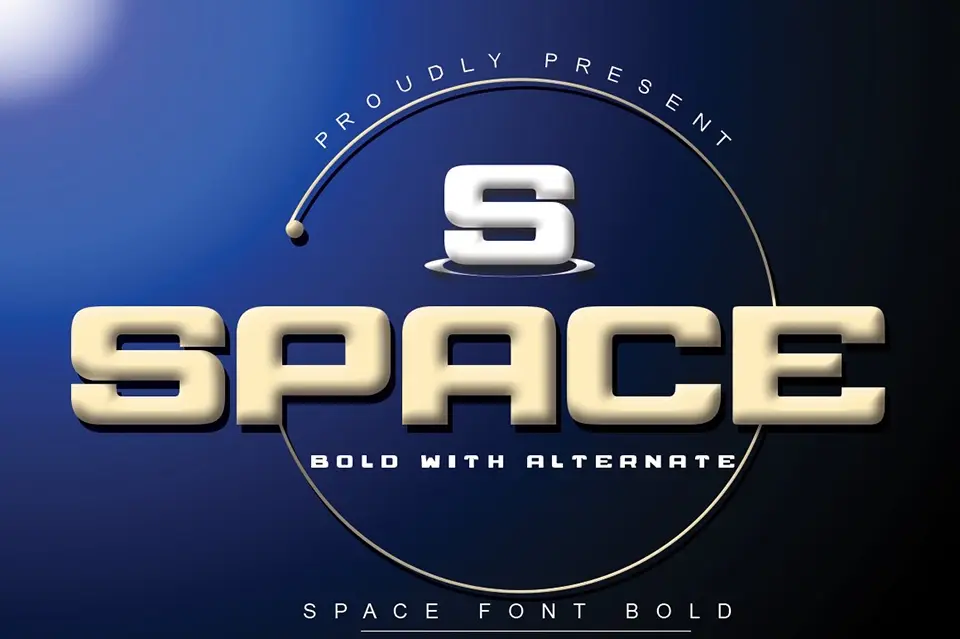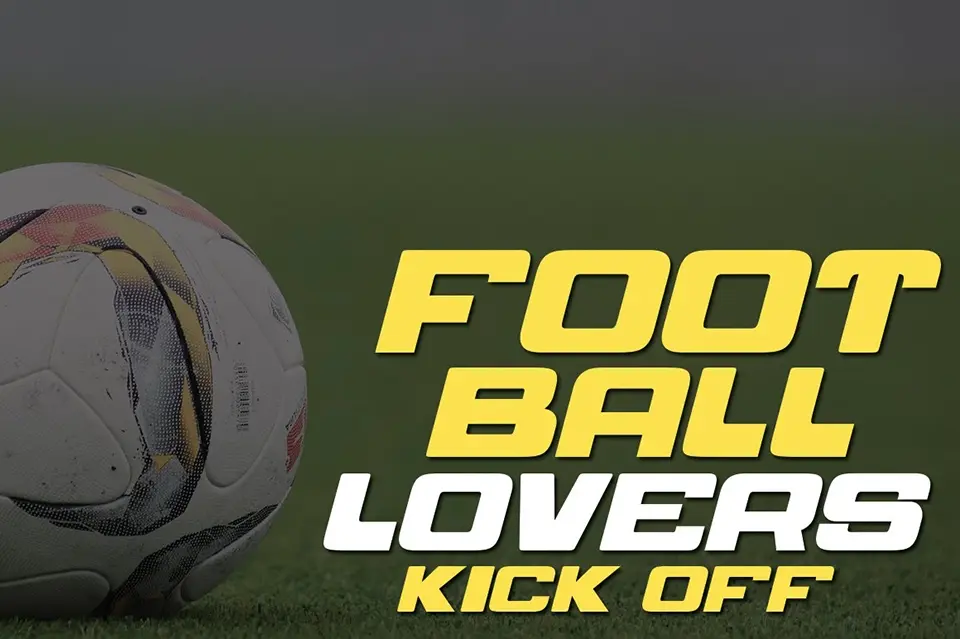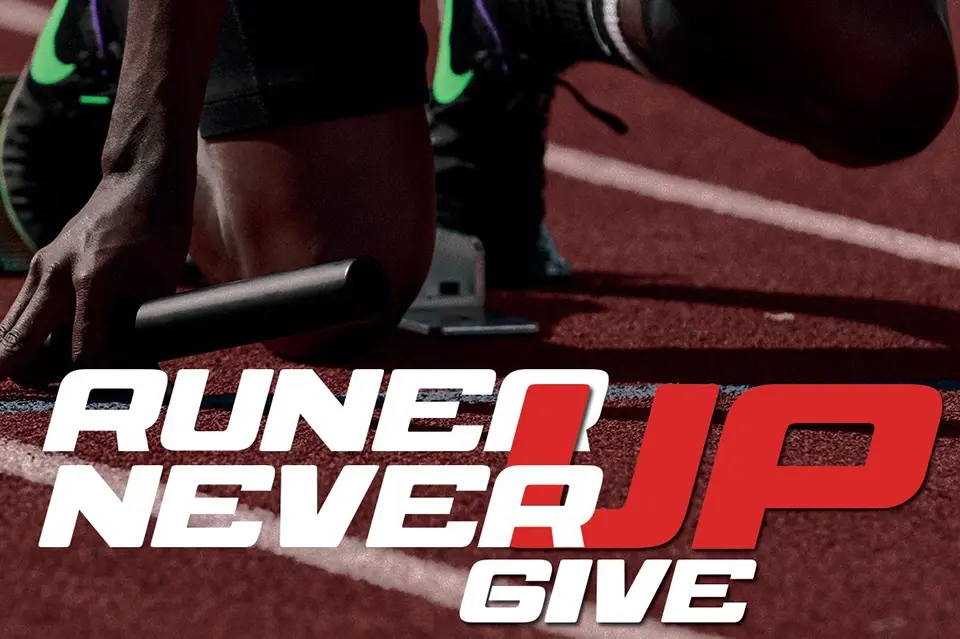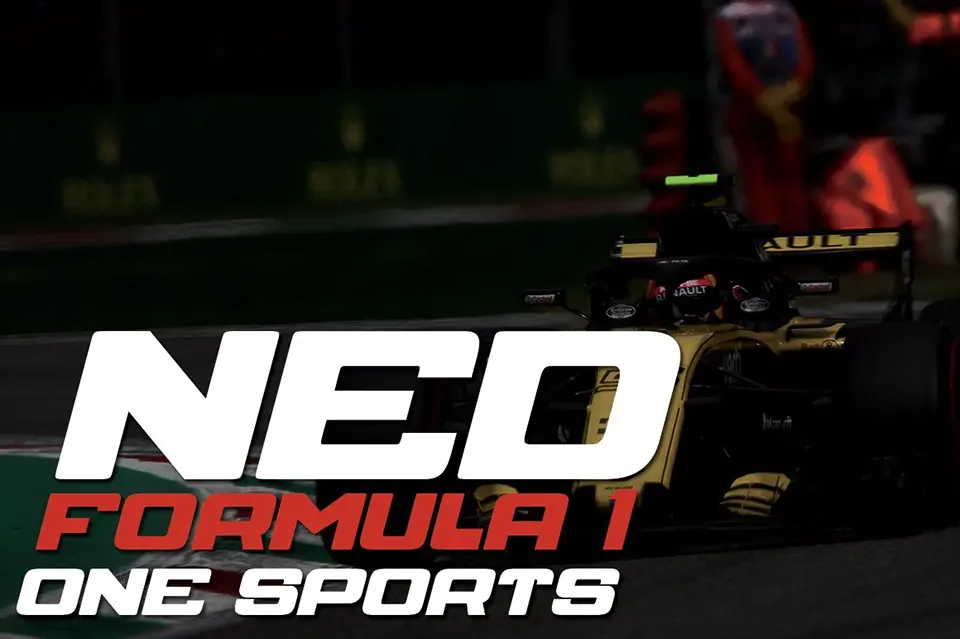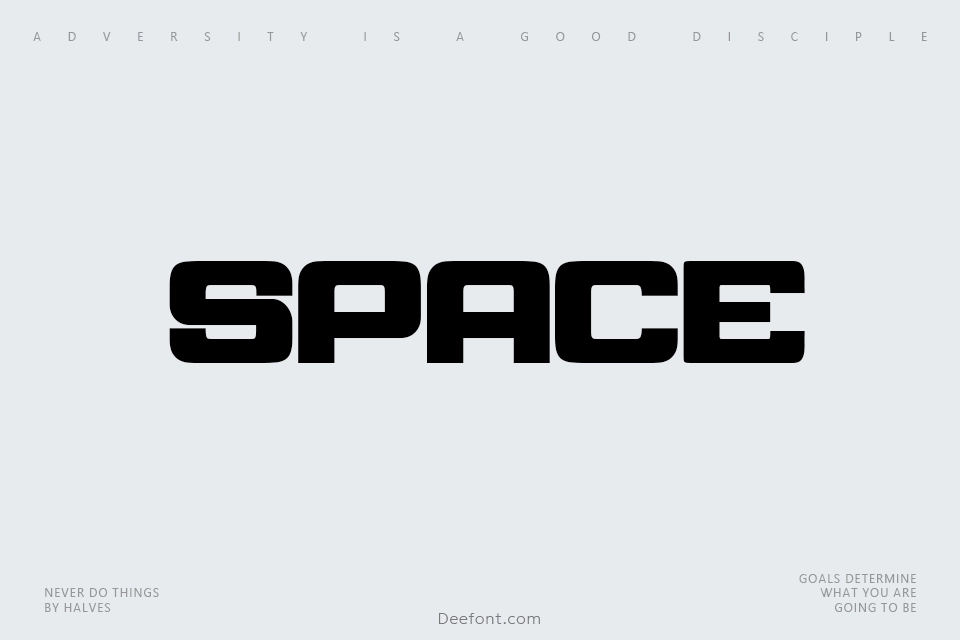
Space Typeface
Space is a modern sans-serif typeface designed by Ibram Syah featuring geometric and contemporary aesthetics. This font delivers clean, minimalist letterforms perfect for digital interfaces, branding projects, and display applications. With its versatile character set and smooth curves, Space offers excellent legibility for both screen and print designs, making it an ideal choice for creative professionals seeking a contemporary solution.